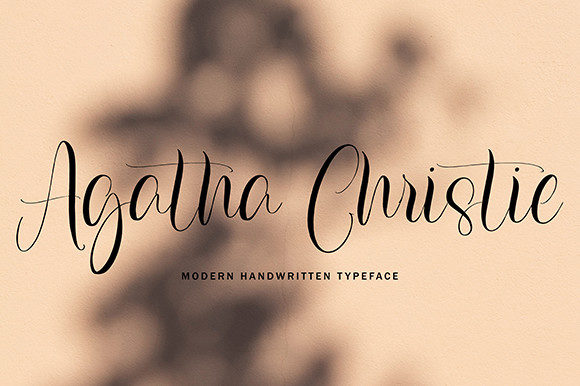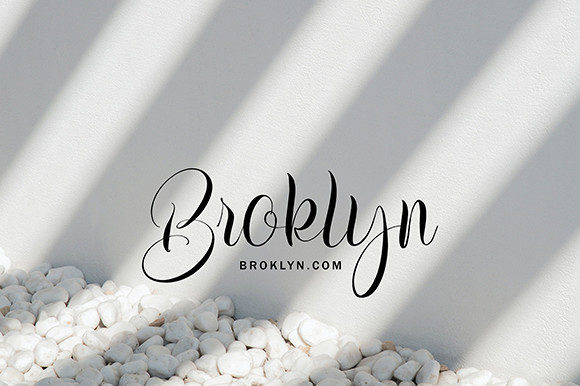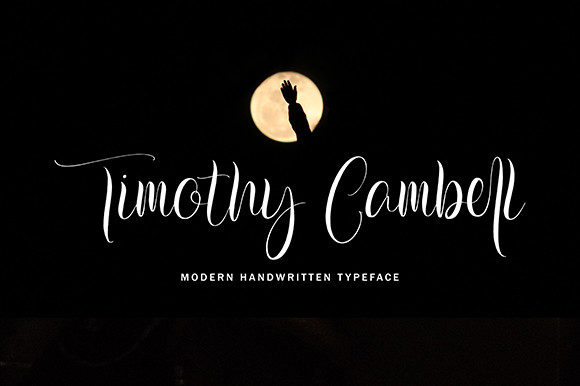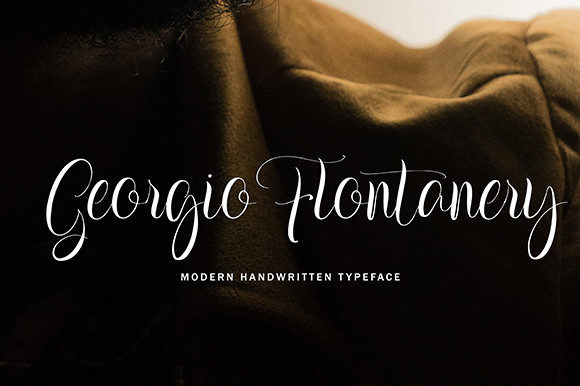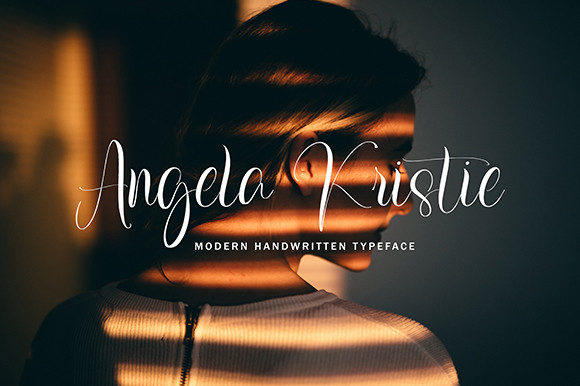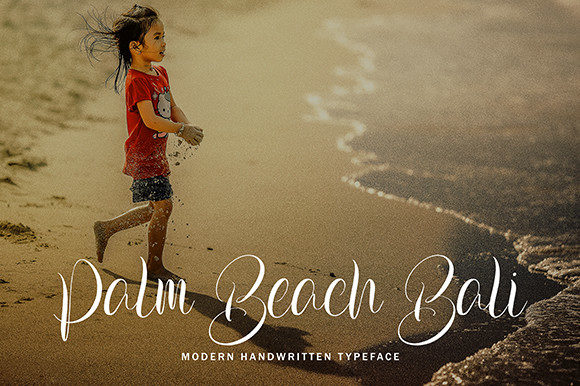
The Elusive Font: A Love Story with Fioletrina
I’ll never forget the moment I stumbled upon Fioletrina Font. I was working on a project for a client who wanted a elegant, handwritten font to convey a sense of sophistication and whimsy. I had spent hours scouring font libraries and marketplaces, but nothing seemed quite right. That was until I saw Fioletrina – its flowing lines and elegant touch captured my heart, and I knew I had found the perfect fit.
What I Love About Fioletrina ✨
- 💫 Elegant and sophisticated: Fioletrina’s unique style adds a touch of luxury to any design.
- ✅ Highly legible: Despite its flowing nature, Fioletrina is surprisingly easy to read, even at smaller sizes.
- 🎨 Versatile: From wedding invitations to branding materials, Fioletrina is perfect for a wide range of creative projects.
- 🌈 Beautifully crafted: The attention to detail in Fioletrina is impressive, with beautiful swashes and ligatures.
Small Quirks and Limitations 🤔
- ⚠️ Limited use in body text: While Fioletrina is beautiful, it’s best used in moderation. Its elegant nature can get lost in longer blocks of text.
- 🤔 Some characters may require manual kerning: While Fioletrina is generally well-spaced, some character combinations may require manual adjustment for optimal results.
The Story Behind Fioletrina: A Designer’s Inspiration
Fioletrina was created by a talented designer who wanted to craft a font that would evoke the elegance and sophistication of handwritten calligraphy. With its beautiful swashes and ligatures, Fioletrina is a true labor of love that shines in any design.
| Font Name | Fioletrina Font |
Q: What type of projects is Fioletrina best suited for?
A: Fioletrina is perfect for creative projects that require a touch of elegance and sophistication, such as wedding invitations, branding materials, and luxury packaging.
Q: Is Fioletrina difficult to read?
A: Despite its flowing nature, Fioletrina is surprisingly easy to read, even at smaller sizes. However, it’s best used in moderation and not for lengthy blocks of text.